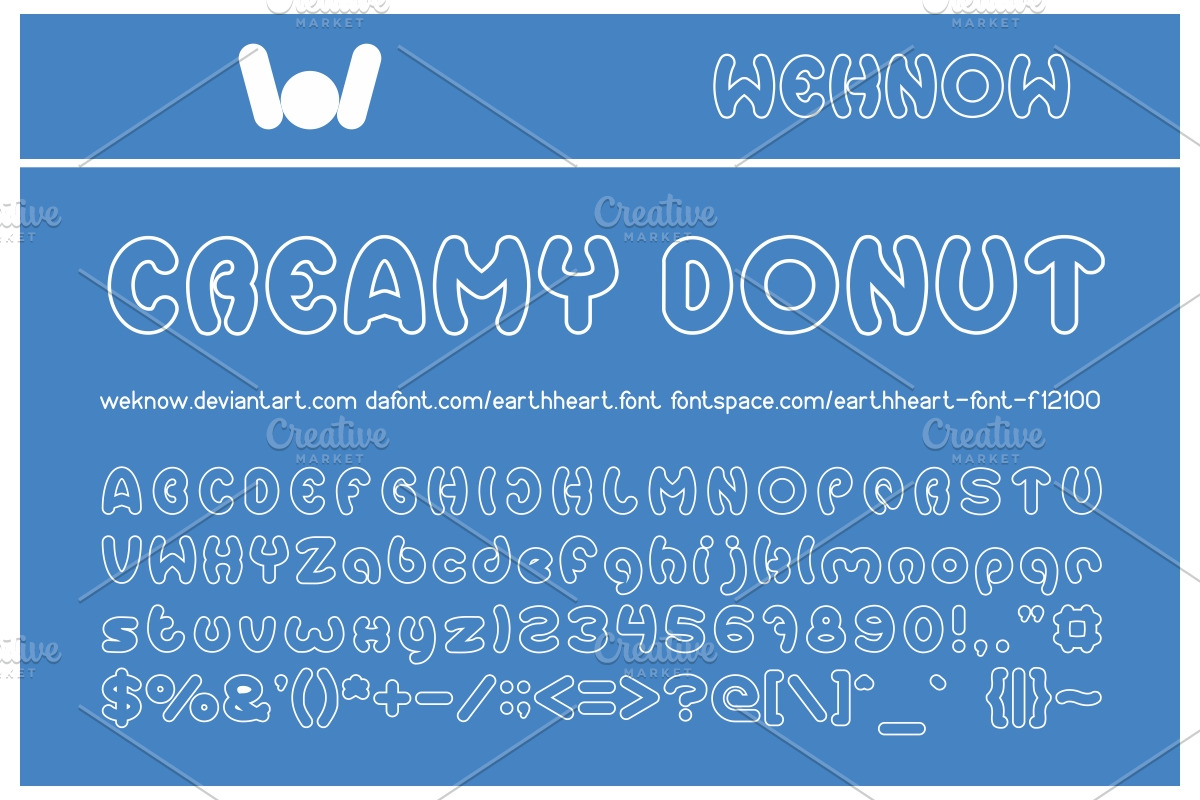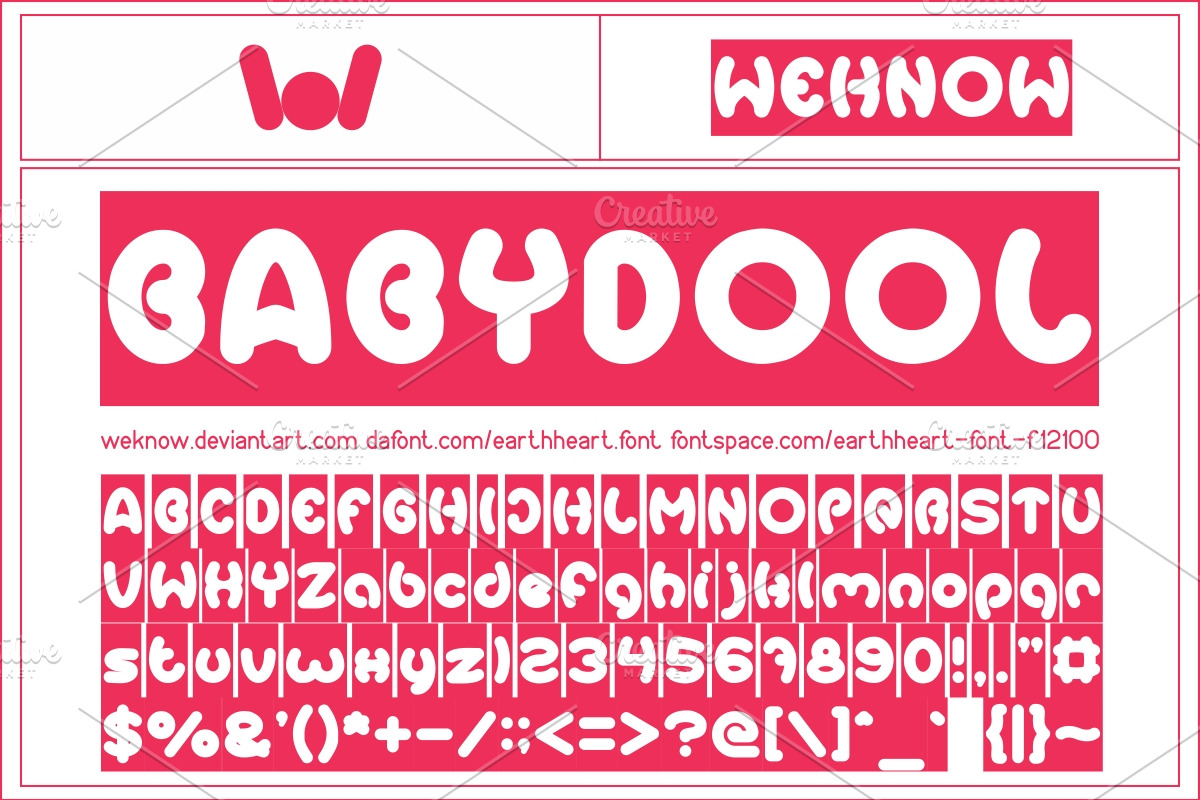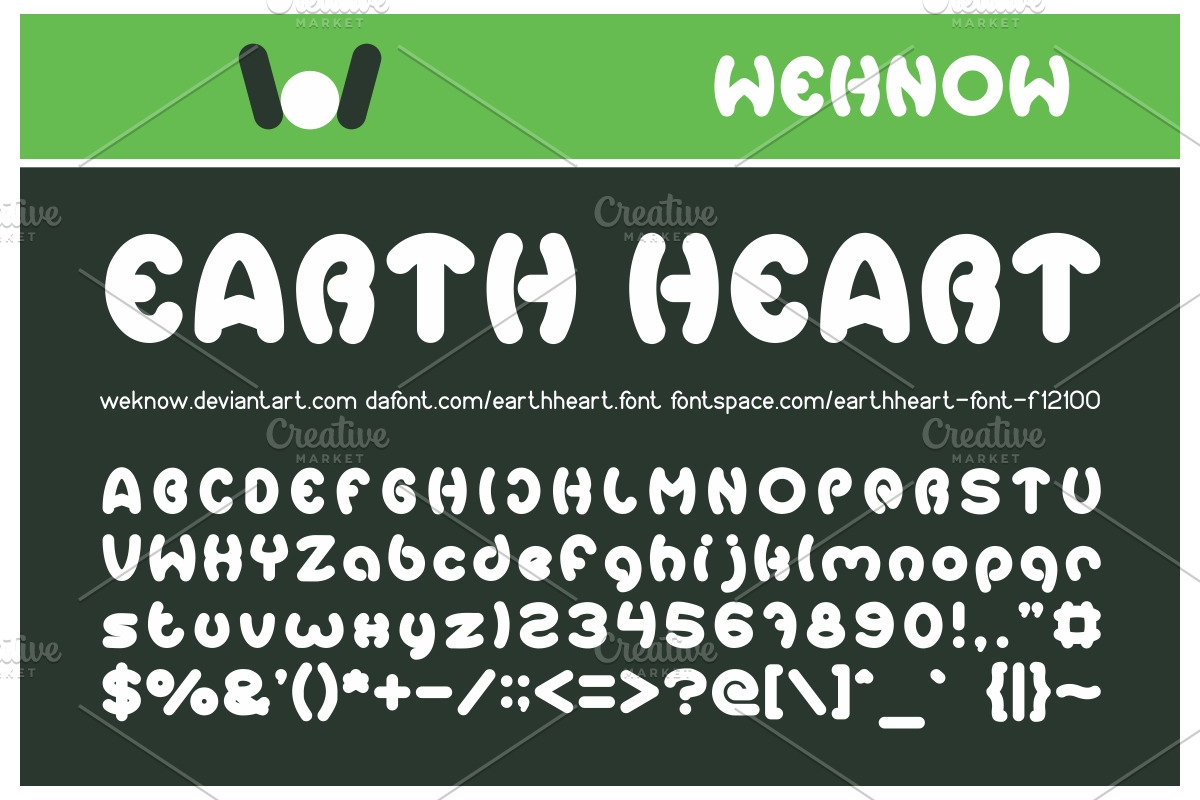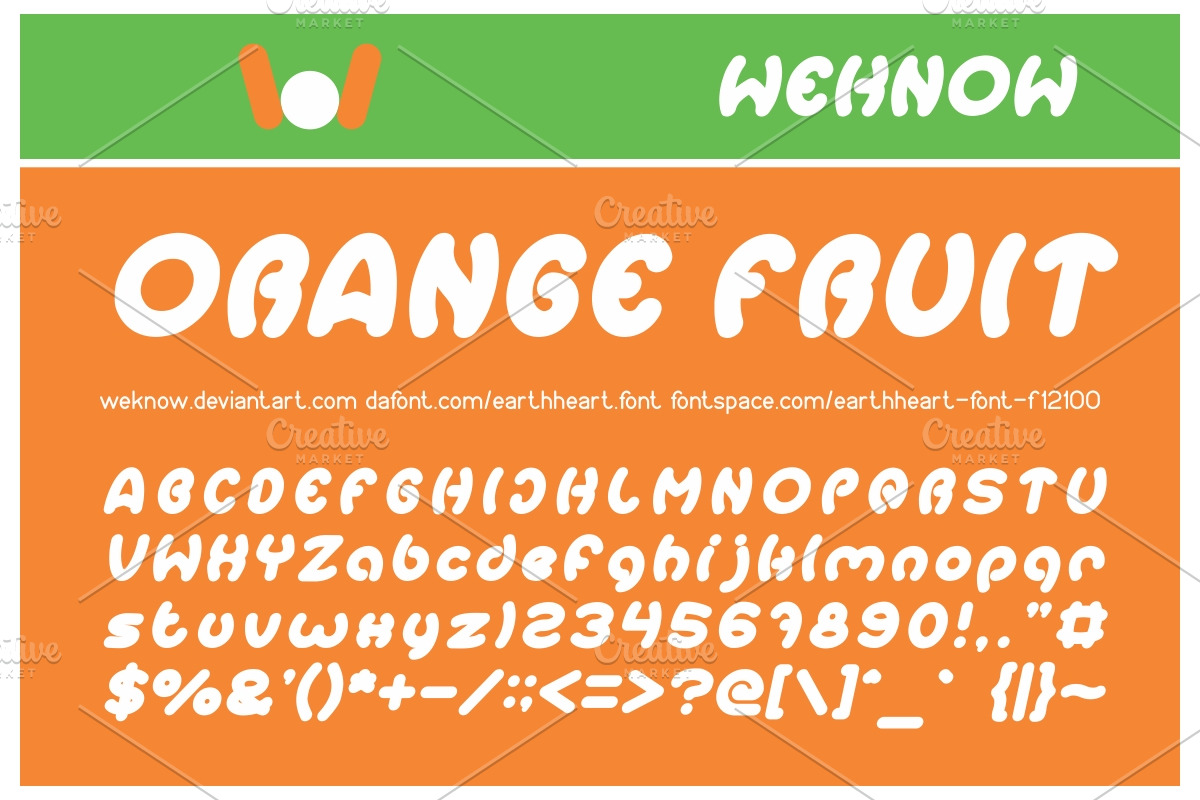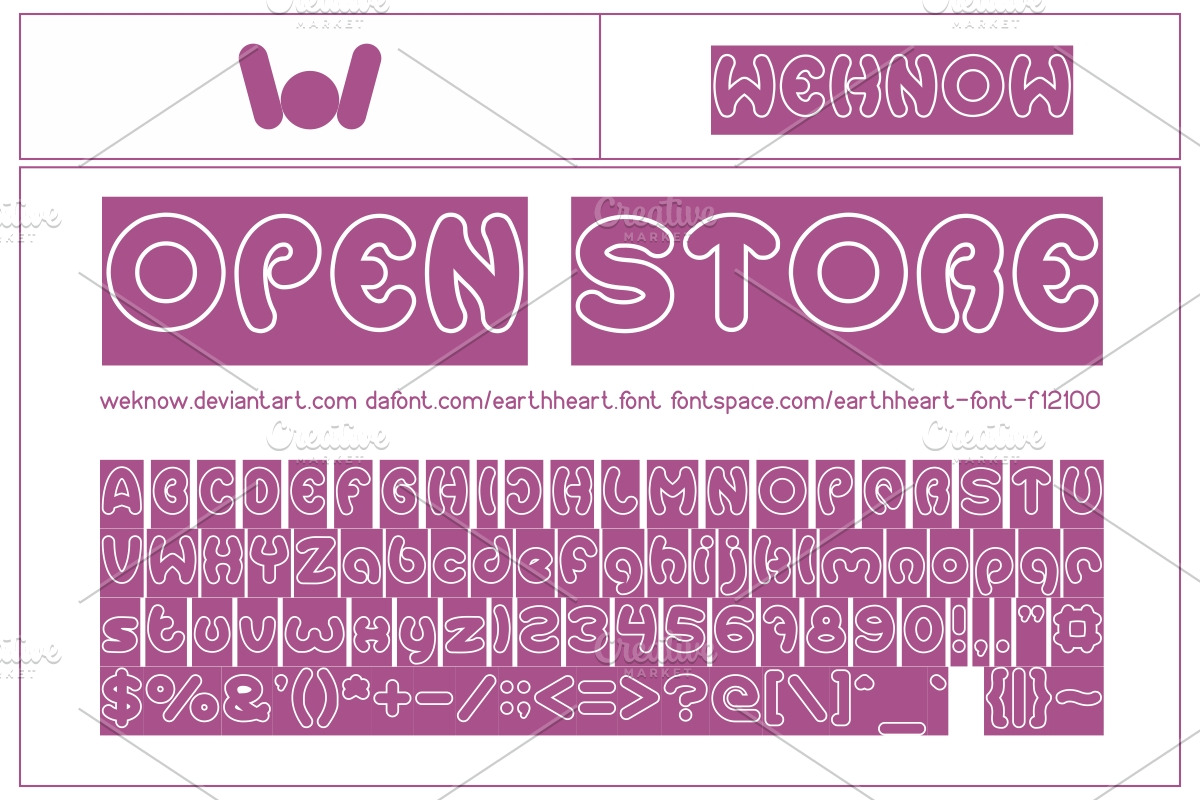
earth heart font
available style: Earth Heart, Earth Heart-Hollow, Earth Heart-Hollow-Inverse, Earth Heart-Italic
Why earth heart font is worth a look
earth heart font by weknow fits naturally into Branding, posters, packaging, typography.